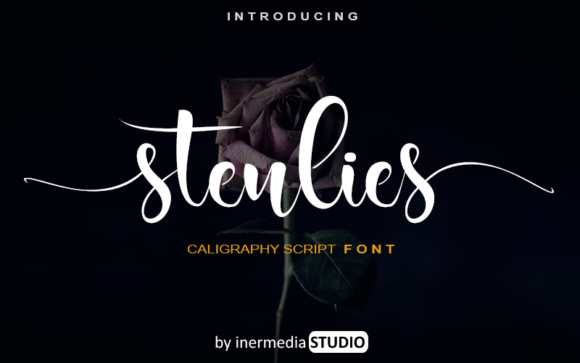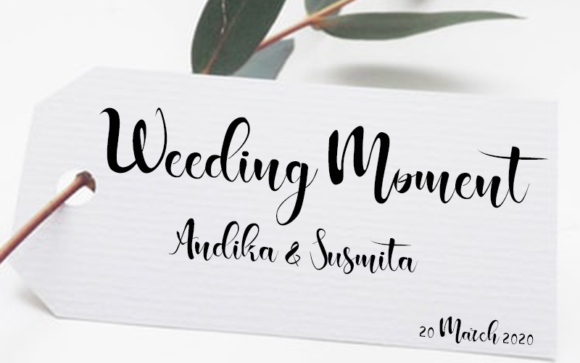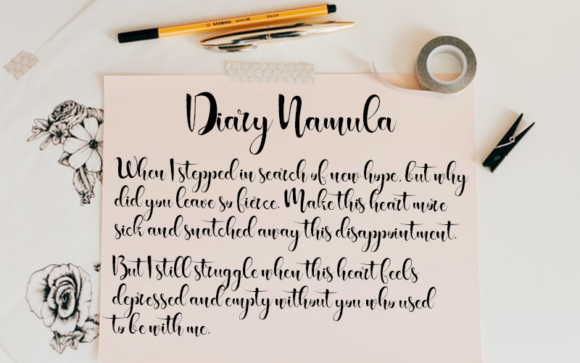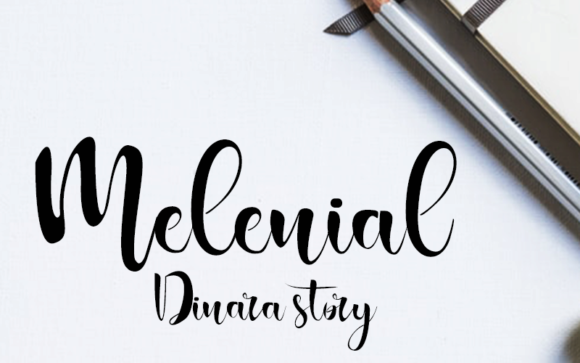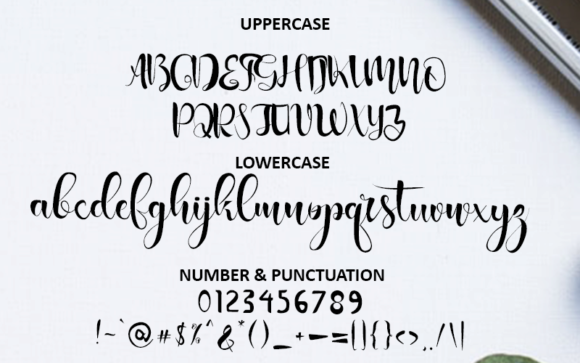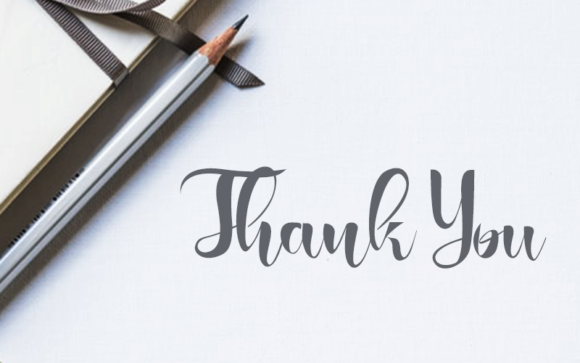
Stenlies Font
About Stenlies Font
Stenlies is a cute handwritten font with an incredibly friendly feel. It features gorgeous swashes and ligatures that make this script incredibly versatile. It will take your crafting projects to the next level!